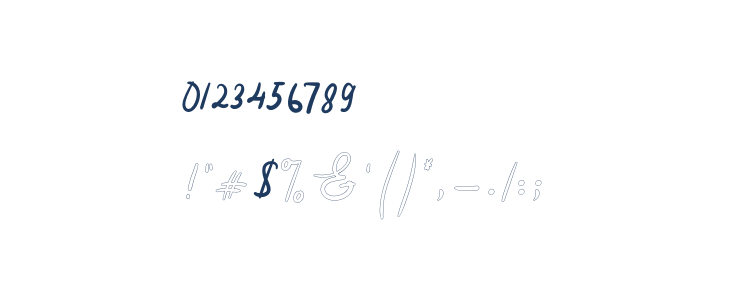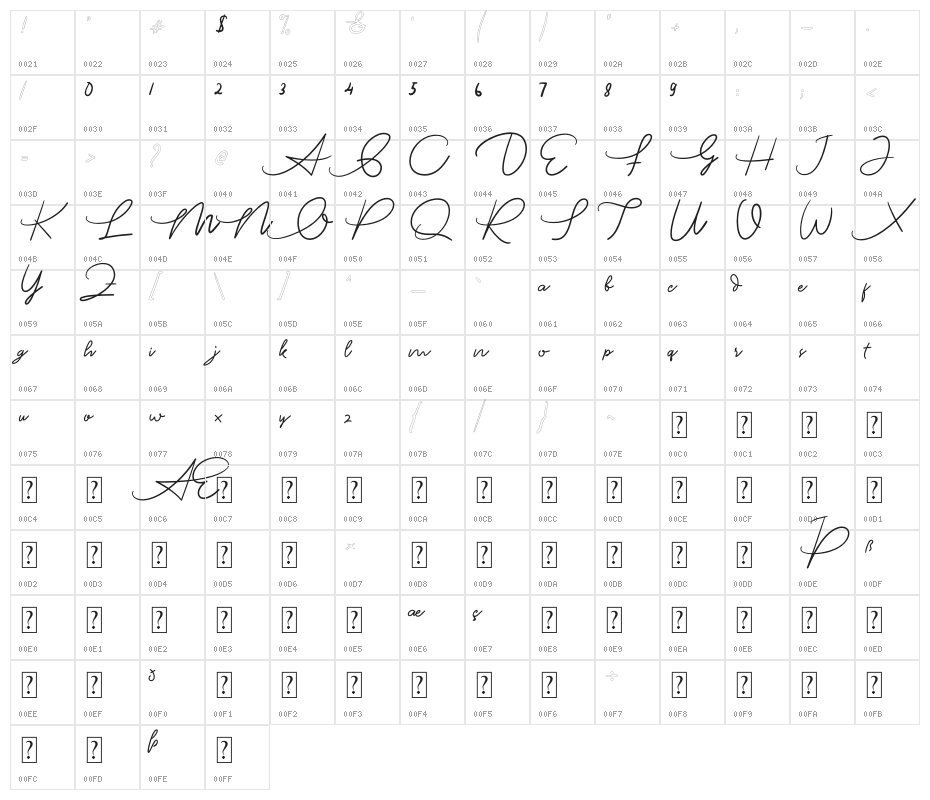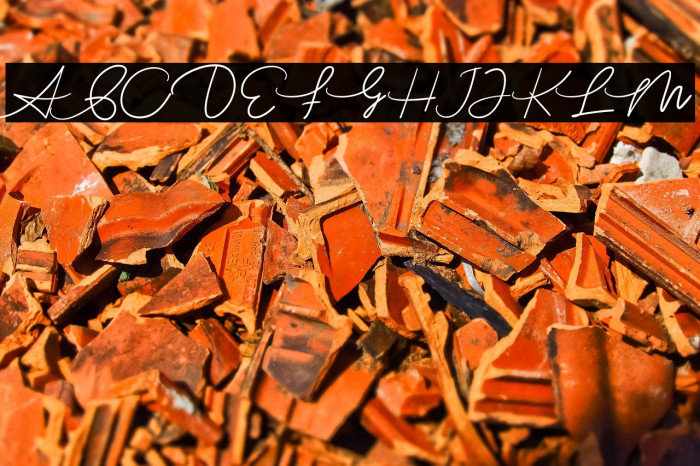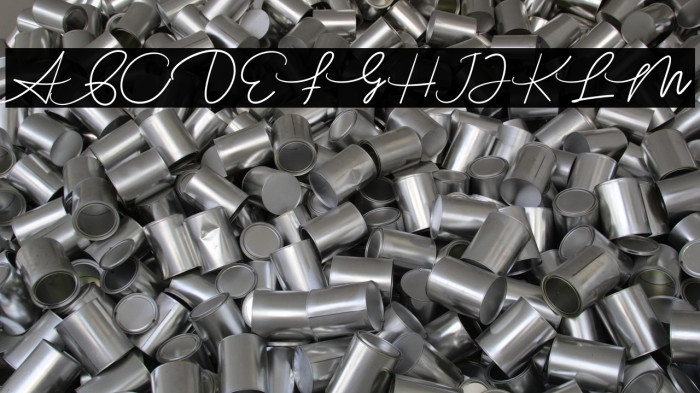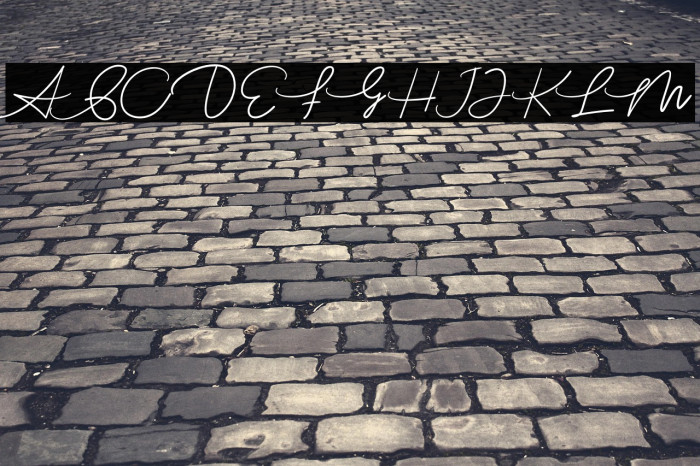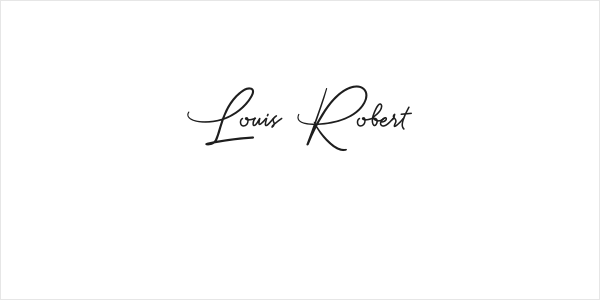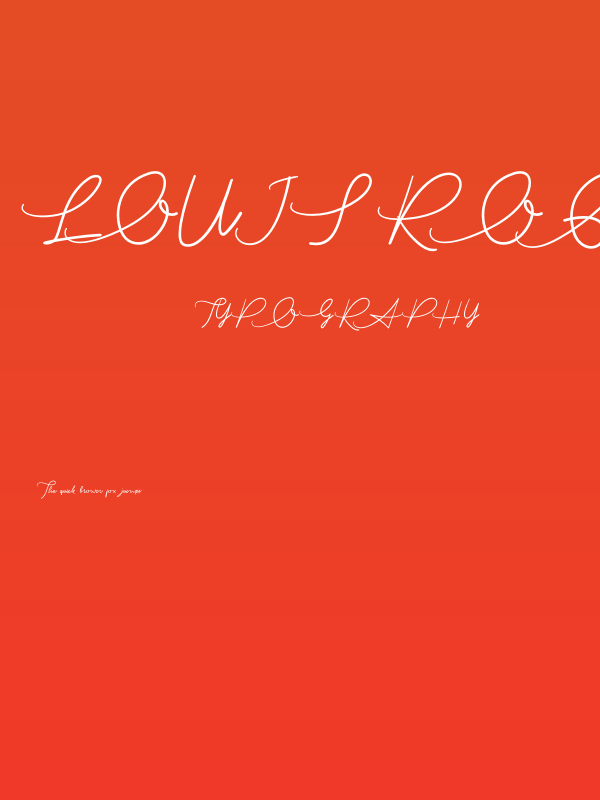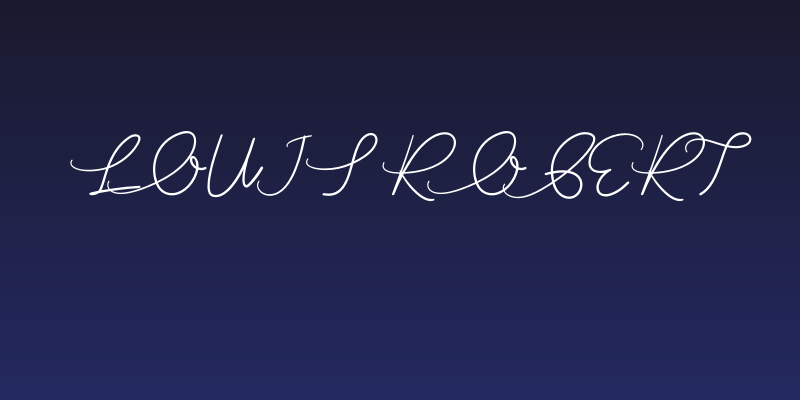
Louis Robert Font
Louis Robert Description
This font exudes a handwritten, cursive style with elegant and flowing lines. The uppercase letters are characterized by their smooth, connected strokes, giving a sense of fluidity and grace. The lowercase letters maintain a consistent style, with a slightly more compact and intricate design. Numbers are clear and maintain the same cursive aesthetic, ensuring readability while retaining the font's overall charm. Special characters are thoughtfully designed to match the elegance of the alphabet, making this font versatile for various uses. The overall impression is one of sophistication and artistic flair, suitable for projects that require a personal touch.
A cursive, handwritten font with elegant and flowing lines from Uncategorized fonts.
- Font: Louis Robert
- Proposed Projects: Ideal for wedding invitations, personal branding, greeting cards, and artistic projects.
- Overall Style: Elegant, Artistic
- Use Case: Invitations, Personal Branding, Artistic Projects